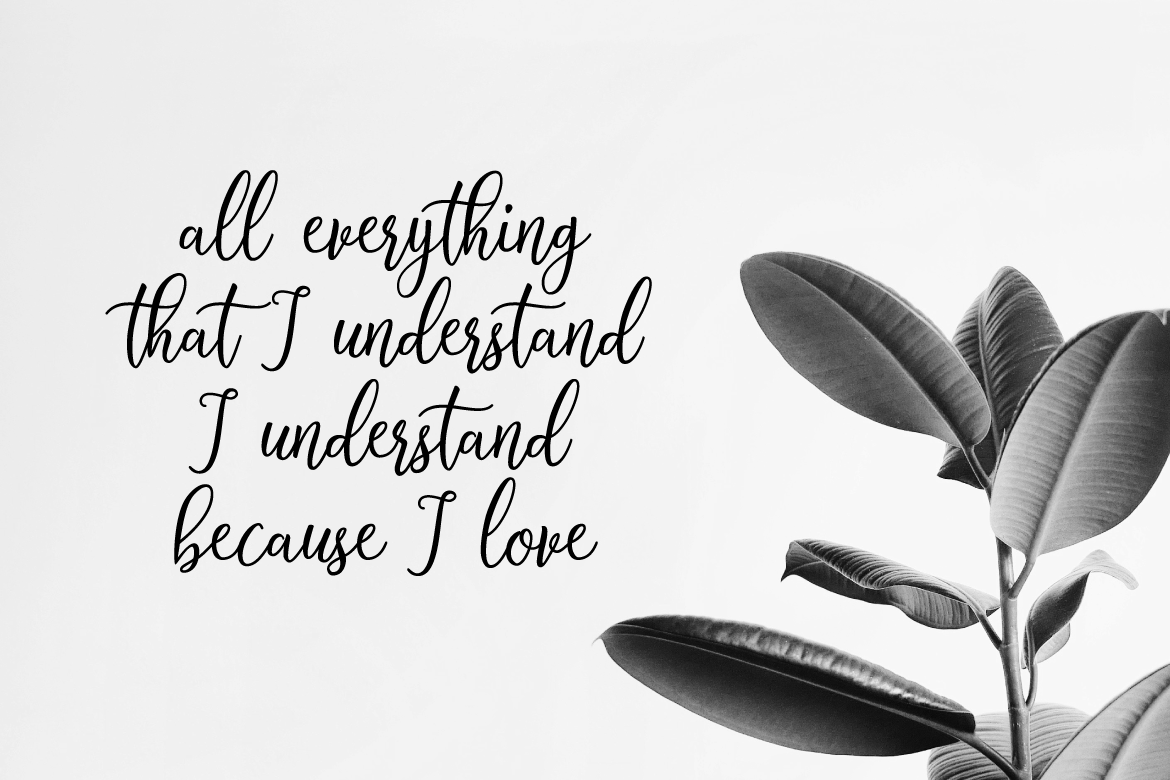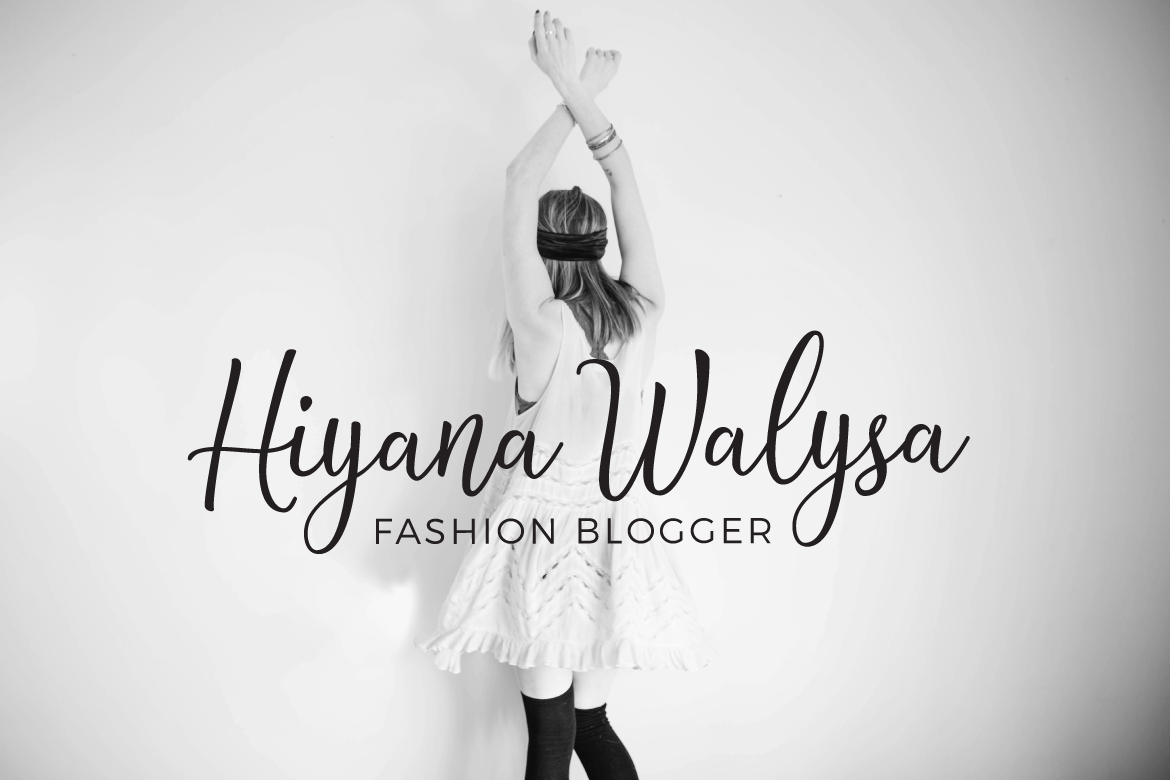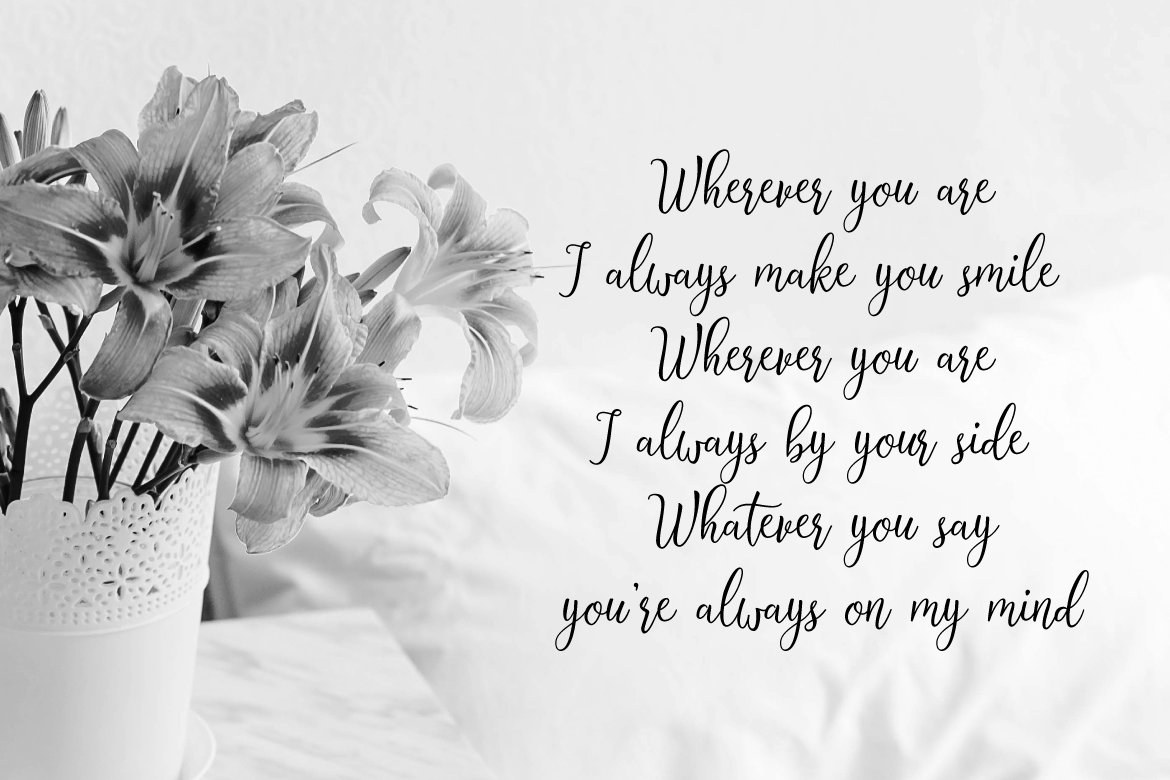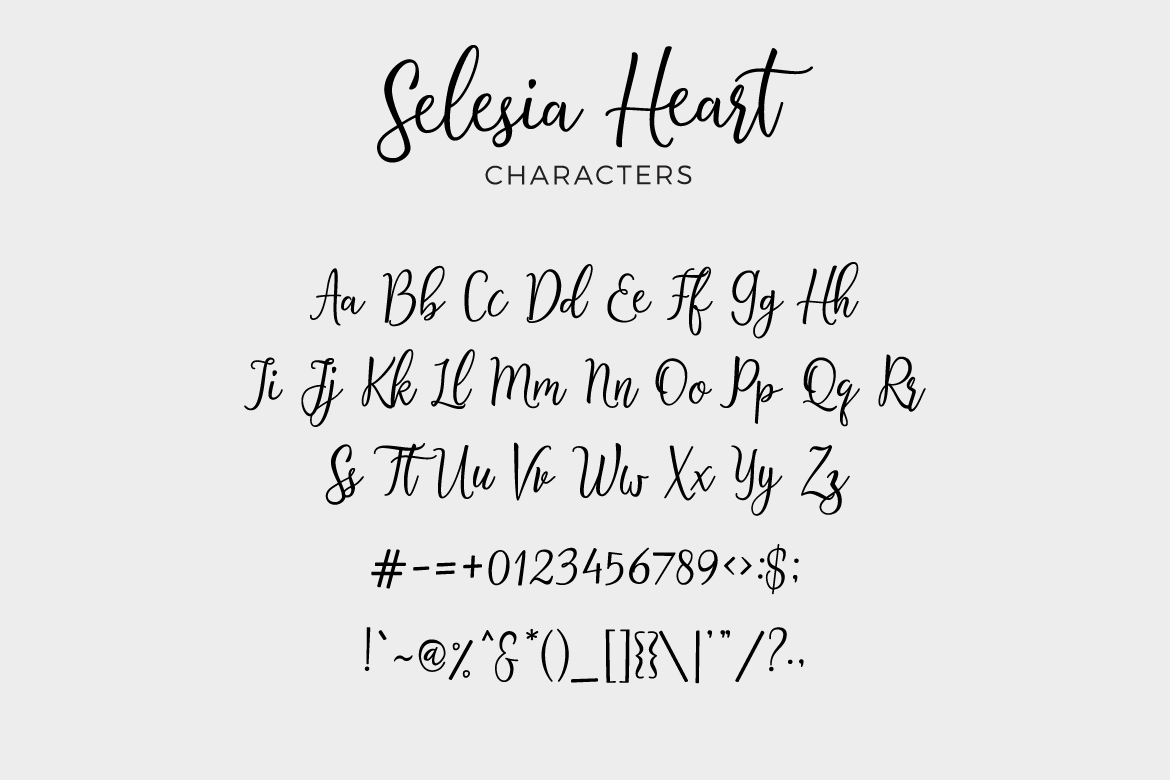
Introduction to Selesia Heart Font
Selesia Heart is a casual calligraphy font.
With a flowing baseline and beautiful weight, Selesia Heart is a captivating and suitable script font for a large range of design projects .